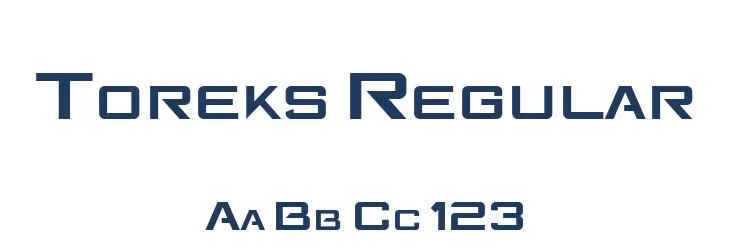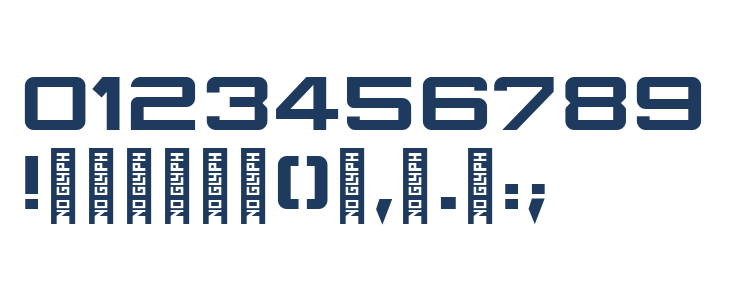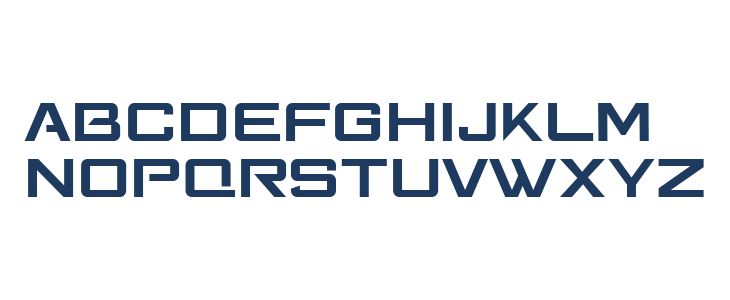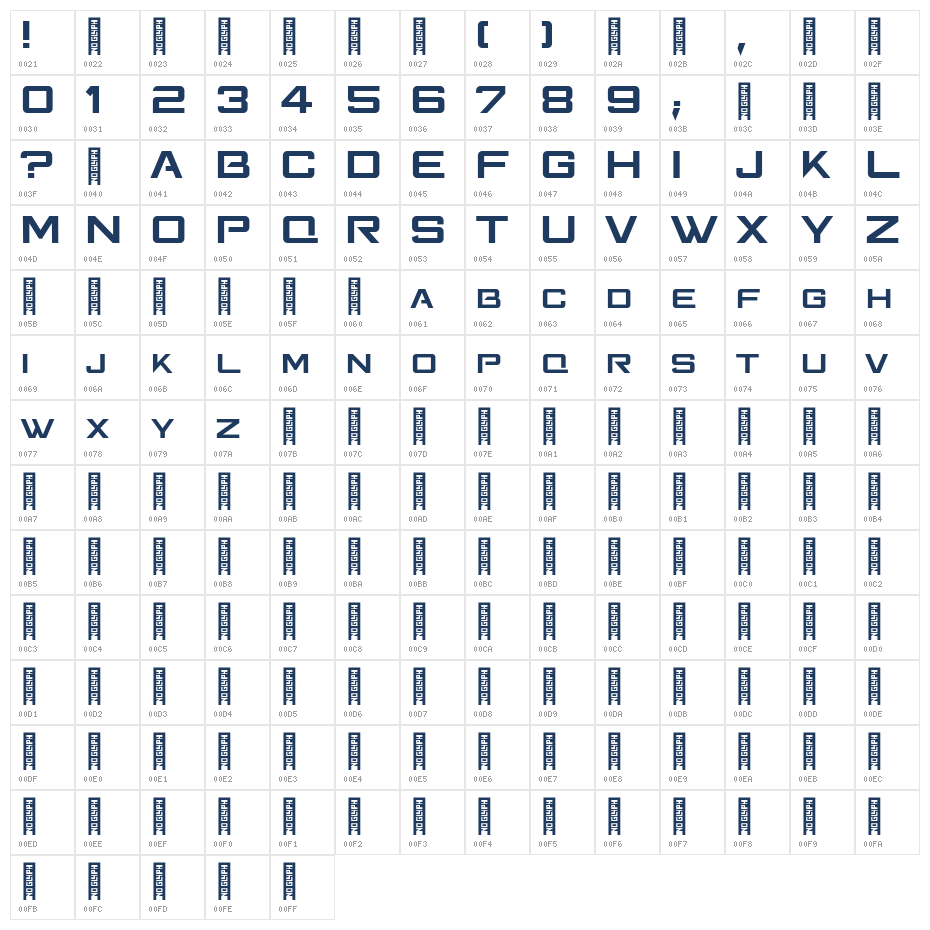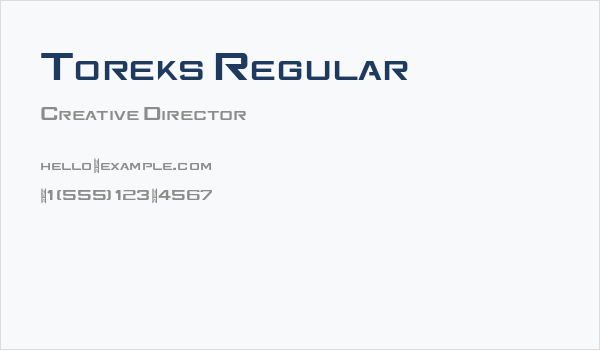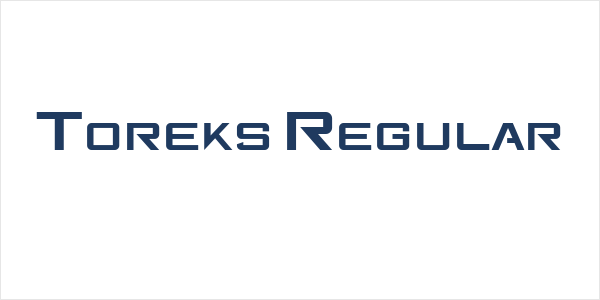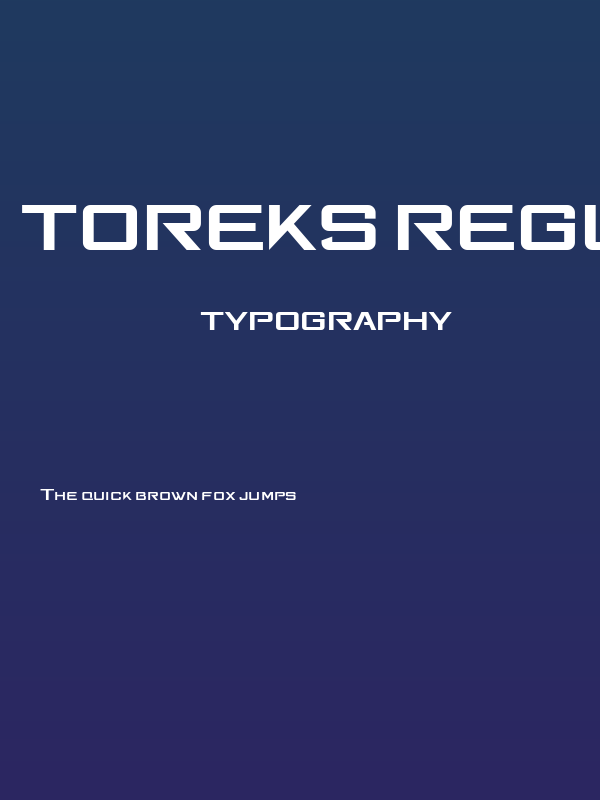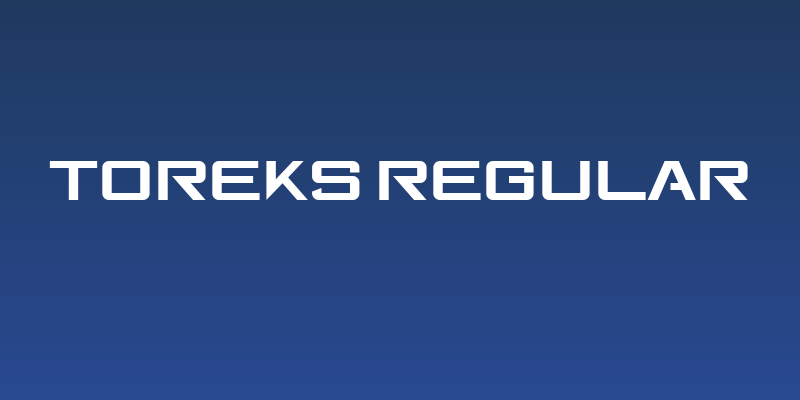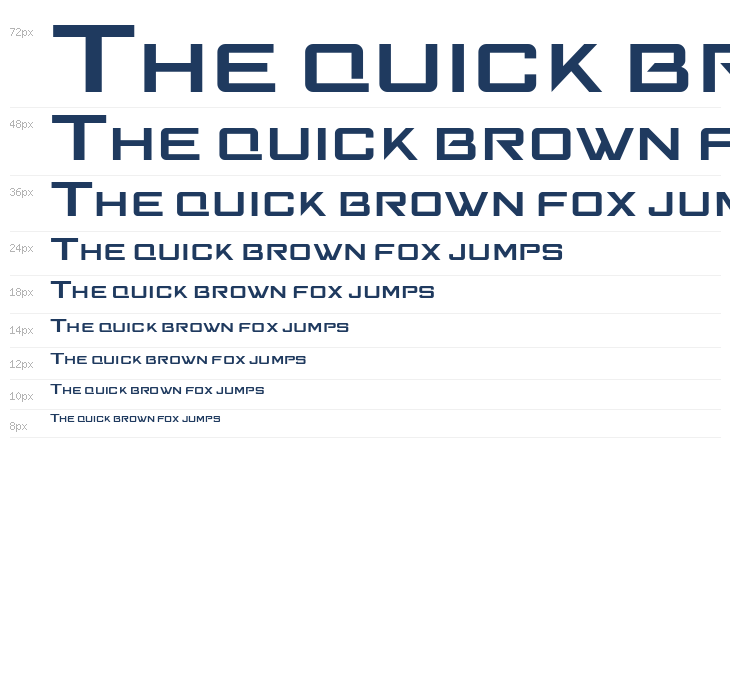
Toreks Regular Font
Toreks Regular Description
This font exhibits a modern and clean design with a geometric structure. The characters are well-balanced with a consistent stroke width, providing a harmonious appearance. The uppercase letters are bold and assertive, while the lowercase letters maintain a friendly and approachable style. The numerals are clear and easy to read, making them suitable for various applications. Special characters are distinct and integrate seamlessly with the rest of the font, enhancing its versatility. The overall design is sleek and professional, making it ideal for contemporary projects.
| Proposed Projects | Ideal for branding, advertising, digital interfaces, and editorial design. |